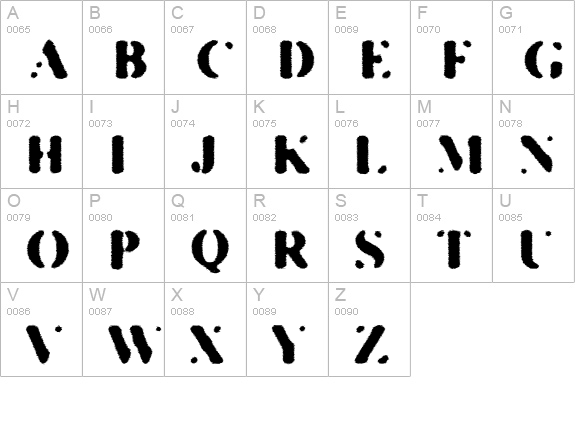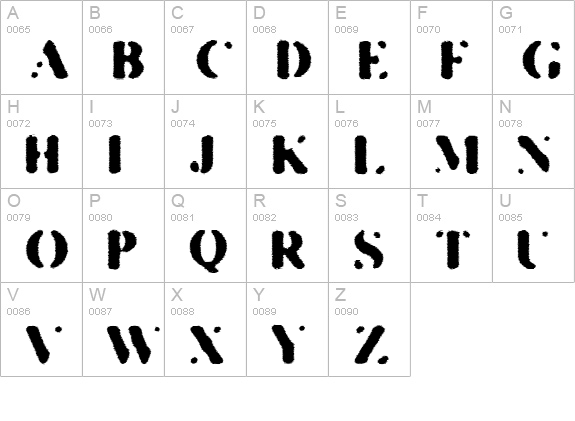
KILL THE HIPPIES Font Details
Introducing KILL THE HIPPIES font, a rebellious and edgy typeface that breaks all the rules. With its bold and jagged letterforms, this font is perfect for those who want to make a strong and impactful statement. KILL THE HIPPIES font captures the essence of the counterculture movement with its unconventional design. Inspired by the spirit of nonconformity and individuality, each letter is carefully crafted to embody the raw and untamed energy of the free-spirited rebels. This font is not for the faint of heart. It demands attention and commands authority. Whether you're designing album covers, creating bold headlines, or crafting rebellious posters, KILL THE HIPPIES font will make sure your message is heard loud and clear. But what sets KILL THE HIPPIES font apart from the rest is not only its distinctive style but also its accessibility. We believe that creativity should be free, and that's why we are thrilled to offer this font as a free download at FontsMarket.com. Now you can unleash your inner rebel without breaking the bank. So go ahead, defy the norms, and embrace the spirit of the counterculture. Download KILL THE HIPPIES font today and let your typography speak volumes. It's time to make your mark and show the world what you're truly made of.